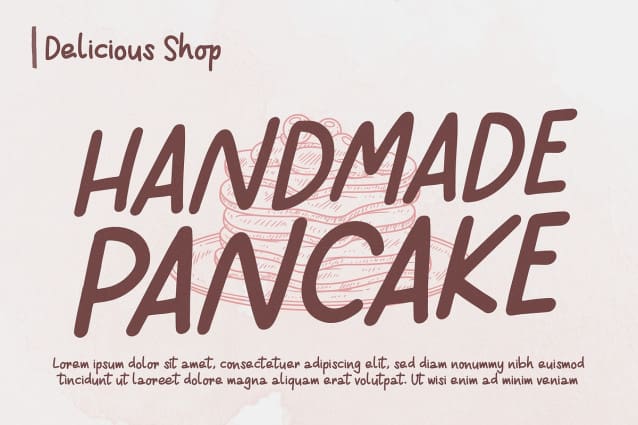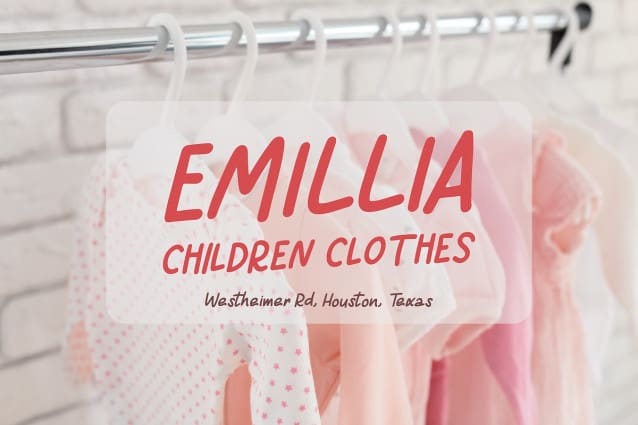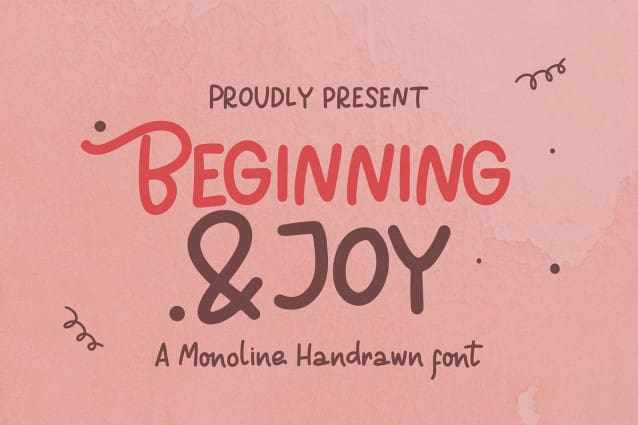
Beginning Joy Font
Beginning Joy Font | Monoline Hand Drawn, from Denustudios, suitable for any projects such as: logos, branding projects, homeware designs, product packaging, mugs, quotes, posters, shopping bags, t-shirts, book covers, name card, invitation cards, greeting cards, label, photography, watermark, special events, and all your other lovely projects that need a Monoline Hand Drawn taste.